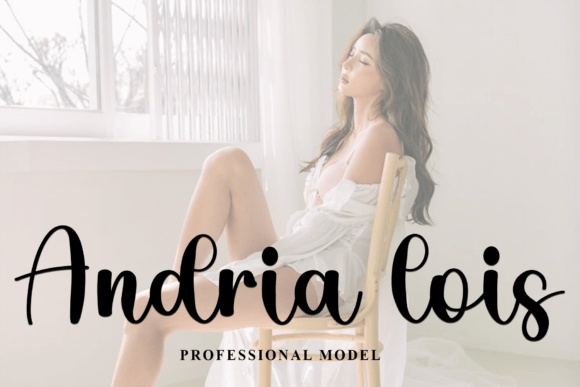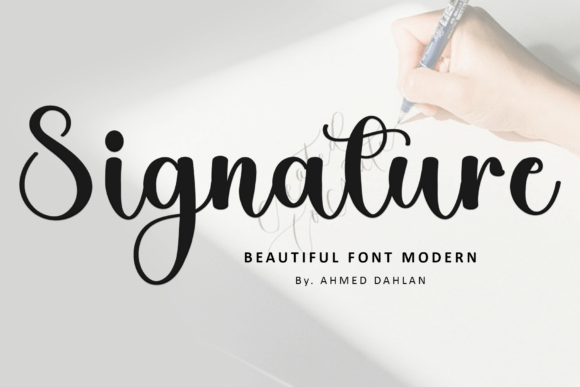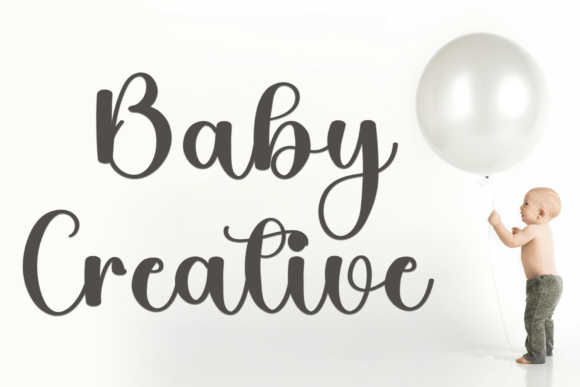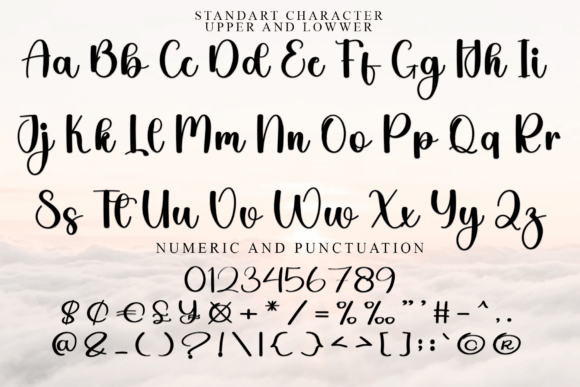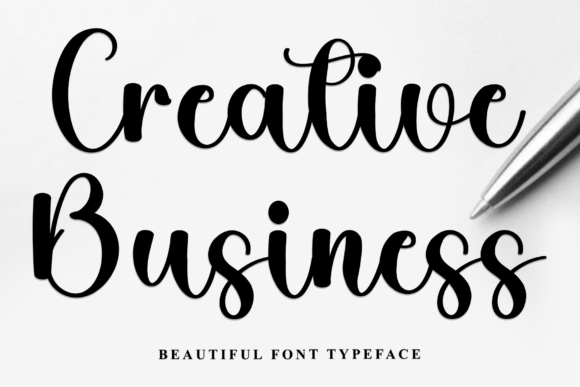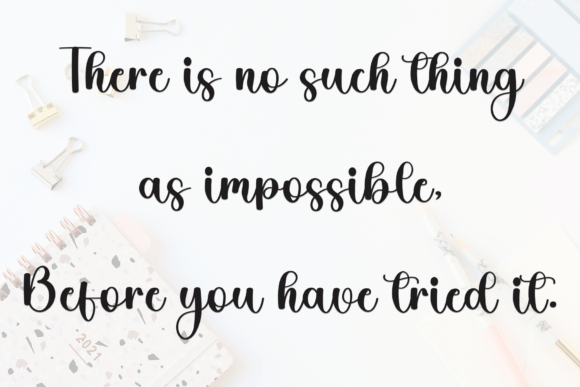
Introducing Autumn Sunshine Font: Elevate Your Designs with a Touch of Warmth
Are you tired of using the same old fonts in your design projects? Look no further than the Autumn Sunshine Font, a beautiful and eye-catching typeface that is sure to add a touch of warmth and uniqueness to your creations. Designed with a soft, unique touch, this font is perfect for designers, crafters, and artists looking to add a special something to their work.
The Distinctive Character of Autumn Sunshine Font
What sets Autumn Sunshine Font apart from other fonts is its distinctive strokes, which give it a special character that is both meaningful and versatile. Whether you’re working on a design project, crafting a handmade card, or creating a work of art, this font is sure to make a statement. With a wide range of characters to choose from, you can experiment with different styles and techniques to create something truly unique.
Autumn Sunshine Font is perfect for a wide range of design projects, from digital graphics to handmade crafts. Its natural, effortless style makes it ideal for creating products that are both visually appealing and meaningful. Whether you’re designing a logo, creating a social media graphic, or crafting a handmade card, this font is sure to elevate your work and make it stand out from the crowd.
Enhance Your Designs with Autumn Sunshine Font
Autumn Sunshine Font is more than just a font – it’s a design element that can enhance your creations and make them more appealing to a wide range of audiences. Whether you’re working in graphic design, illustration, or another creative field, this font is sure to add a touch of warmth and personality to your work. With its unique character and natural style, it’s the perfect choice for designers and crafters looking to create something truly special.
Key Features of Autumn Sunshine Font
- Beautiful and eye-catching design with a soft, unique touch
- Distinctive strokes give it a special character
- Meaningful and versatile for future use
- Wide range of characters to choose from
- Ideal for design projects, crafts, and other creative works
Get Creative with Autumn Sunshine Font
If you’re looking for a font that will add a touch of warmth and personality to your designs, look no further than Autumn Sunshine Font. With its unique character and natural style, it’s the perfect choice for designers, crafters, and artists looking to create something truly special. So why wait? Download Autumn Sunshine Font today and start elevating your designs to the next level.
In conclusion, Autumn Sunshine Font is a beautiful and eye-catching typeface that is sure to add a touch of warmth and uniqueness to your design projects, crafts, and other creative works. With its distinctive strokes, wide range of characters, and compatibility with a wide range of applications, it’s the perfect choice for designers, crafters, and artists looking to create something truly special. So why wait? Download Autumn Sunshine Font today and start creating something amazing.